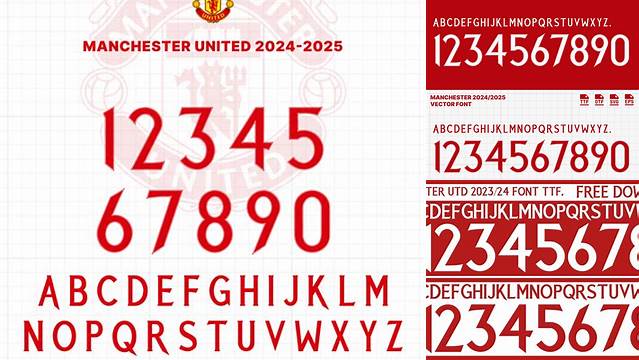
Hey guys! Are you a die-hard Manchester United fan? Do you love everything about the Red Devils, from the thrilling matches to the iconic jerseys? Well, you're in for a treat! In this article, we're diving deep into the world of Manchester United fonts, specifically focusing on the 2025/2026 season font and how you can get your hands on a free TTF download. Whether you're a graphic designer, a content creator, or just a fan looking to add a touch of United to your projects, this guide is for you. Let's get started!
The Importance of Fonts in Sports Branding
Before we jump into the specifics of the Manchester United font, let's talk about why fonts are so crucial in sports branding. Think about it – a team's visual identity isn't just about the logo and colors; the font plays a massive role in conveying the team's personality and history. A well-chosen font can evoke feelings of strength, tradition, and excitement, all of which are essential for a successful sports brand.
For a club like Manchester United, with its rich history and global fanbase, the font used on their jerseys, merchandise, and official communications is a key part of their identity. The font needs to be legible, impactful, and instantly recognizable. It's not just about looking good; it's about creating a cohesive brand image that resonates with fans worldwide. The font becomes synonymous with the club, so much so that fans can identify the era of a jersey just by looking at the font used for the player names and numbers.
Consider the evolution of football jersey fonts over the years. In the past, clubs often used generic, off-the-shelf fonts. But as sports branding became more sophisticated, teams started commissioning custom fonts that reflected their unique identity. This move towards bespoke typography has elevated the visual language of sports, making it more dynamic and engaging. For example, the sleek, modern fonts often seen today contrast sharply with the blocky, utilitarian fonts of the 1980s and 1990s, reflecting the changing aesthetics of the game and the wider culture.
Moreover, the font choice impacts how supporters connect with their team. When fans wear a jersey with their favorite player’s name and number, they are not just displaying their support; they are embodying the team's identity. A distinctive and well-designed font enhances this sense of belonging and pride. It creates an emotional connection, turning a piece of fabric into a symbol of loyalty and passion. This is why clubs invest significant resources in crafting the perfect font – it’s an integral part of the fan experience. This font must be perfect for different media, such as print media, website fonts, mobile app fonts, and so on.
Unveiling the Manchester United 2025/2026 Font
Now, let's get to the main event: the Manchester United 2025/2026 font. While the official font for the season is eagerly anticipated each year, we can look at recent trends and previous fonts to get an idea of what to expect. In recent years, Manchester United has often opted for modern, bold fonts that exude power and confidence. These fonts are designed to stand out on the pitch and on merchandise, making a strong visual statement.
Typically, the club collaborates with major sportswear brands like Adidas to develop these fonts. The design process involves careful consideration of the font's legibility, its aesthetic appeal, and how well it represents the Manchester United brand. The font needs to work seamlessly with the overall kit design, complementing the colors, patterns, and other visual elements. It's a balancing act between tradition and innovation, ensuring the font feels both contemporary and respectful of the club's heritage.
Looking back at past fonts, we can see a clear evolution in style. From the more traditional, serif fonts used in the early years of the Premier League to the sleek, sans-serif fonts of recent seasons, Manchester United's typography has mirrored the changing face of football. The 2025/2026 font is likely to continue this trend, potentially incorporating new design elements and technological advancements in font creation. Imagine fonts with subtle 3D effects, dynamic textures, or even integrated club symbols. The possibilities are endless!
While we await the official unveiling, many fan-made concepts and predictions circulate online. Designers and enthusiasts often create their own versions of what the font might look like, showcasing their creativity and passion for the club. These fan-made fonts can be a great source of inspiration and a fun way to engage with the Manchester United community. Keep an eye out for these concepts – you might just stumble upon the next big thing in football typography.
Once the official font is released, it’s not just used on the jerseys. It'll appear across all of Manchester United’s branding materials – from their website and social media channels to their official publications and merchandise. This consistent use of the font helps reinforce the club's identity and creates a cohesive brand experience for fans. It also ensures that whether you're watching a game at Old Trafford or browsing the club's online store, you're always immersed in the Manchester United brand.
So there you have it, guys! A comprehensive guide to the Manchester United 2025/2026 font and how to get your hands on a free TTF download. We've explored the importance of fonts in sports branding, delved into the likely characteristics of the upcoming font, and provided tips on finding and using it in your projects. Whether you're a designer, a content creator, or just a passionate fan, we hope this article has inspired you to add a touch of Manchester United flair to your work. Remember, the font is more than just a set of characters – it's a symbol of the club's identity, history, and the unwavering support of its fans. So go ahead, download the font, and let your creativity shine! Go, go, United!